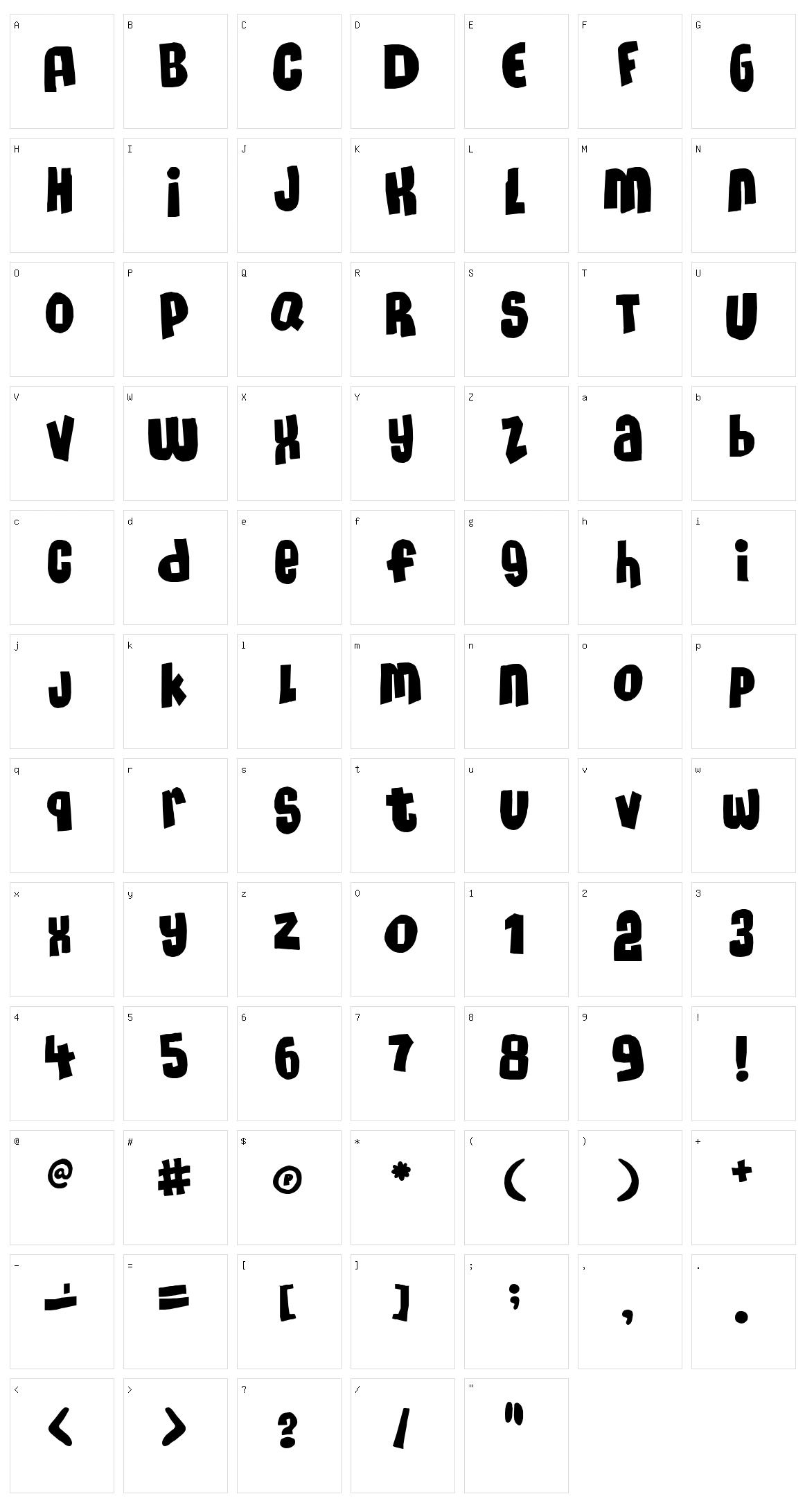
The free font Massive Headache is carefully designed by Pizzadude, showcasing a thoughtful balance of creativity and usability and falls under the Cartoon font style. When you download the ZIP file, it contains only 27.53 KB of font files, making it lightweight and quick to download. Please review the license details below to understand permitted usage and distribution rights. If license information is not available, we recommend using this font for personal projects only or contacting the author directly for commercial usage permissions.